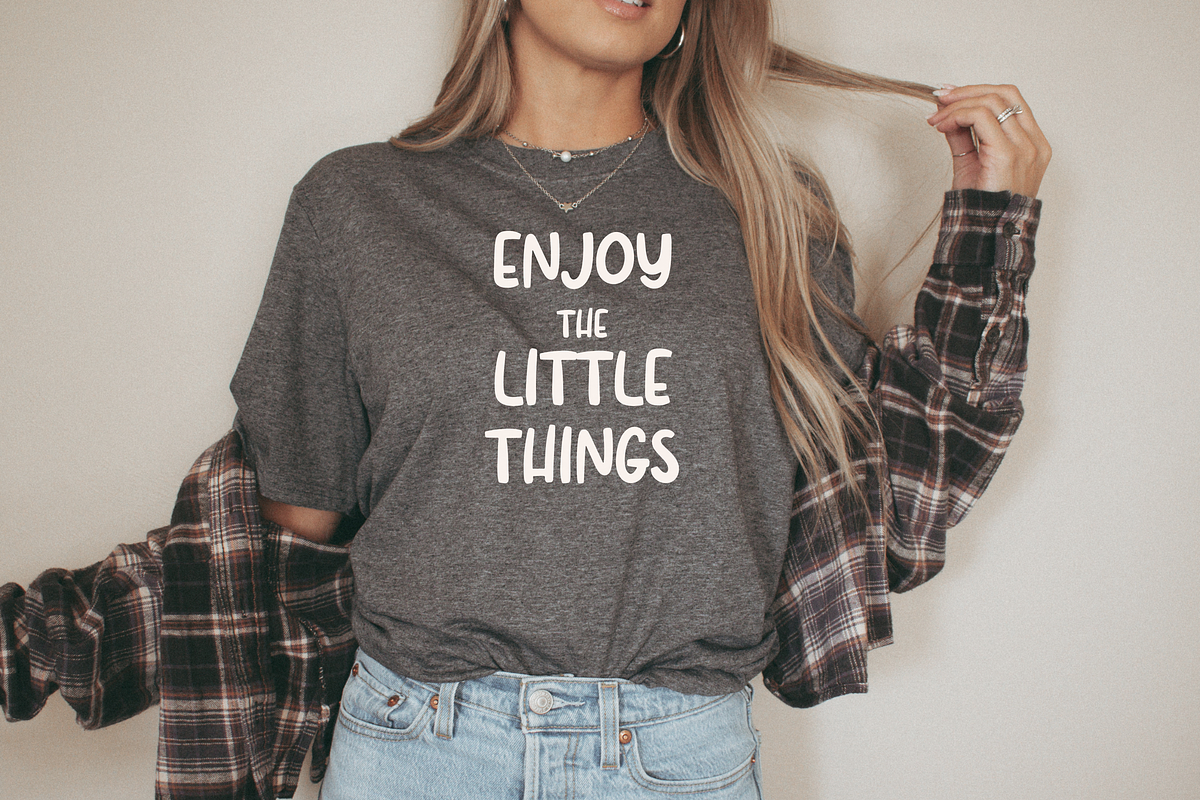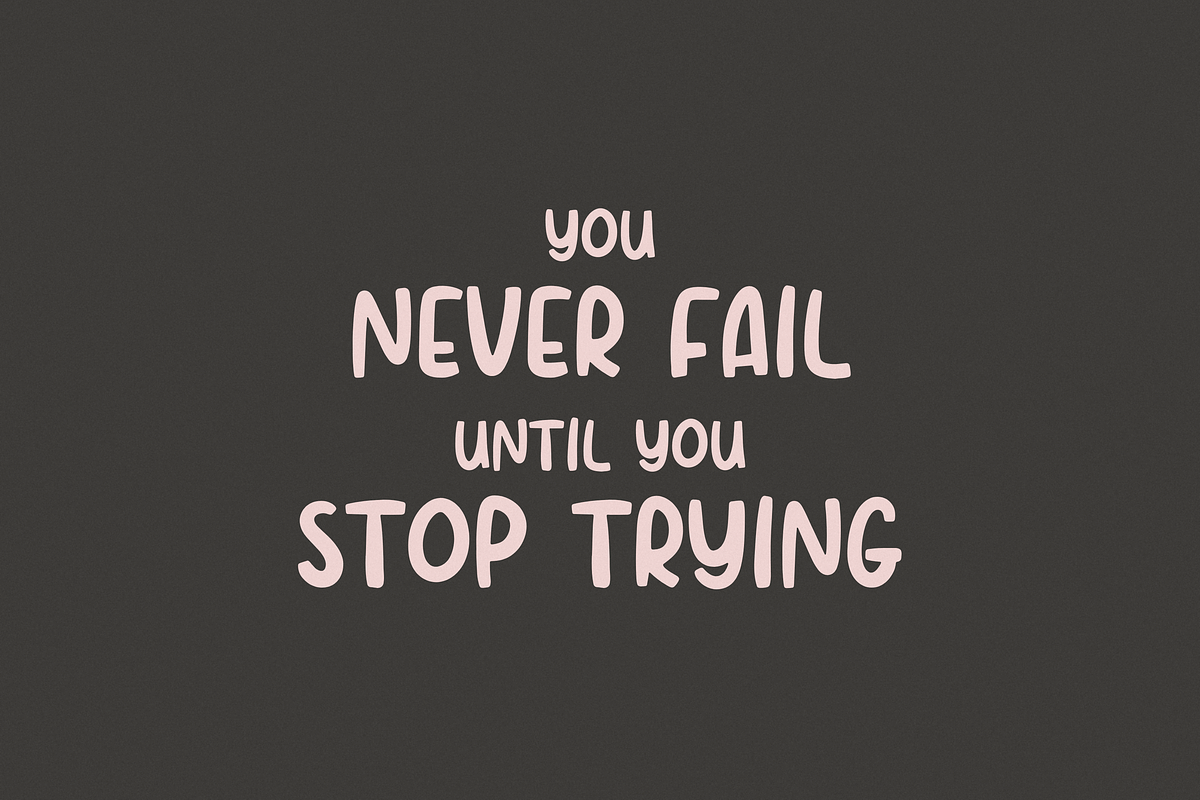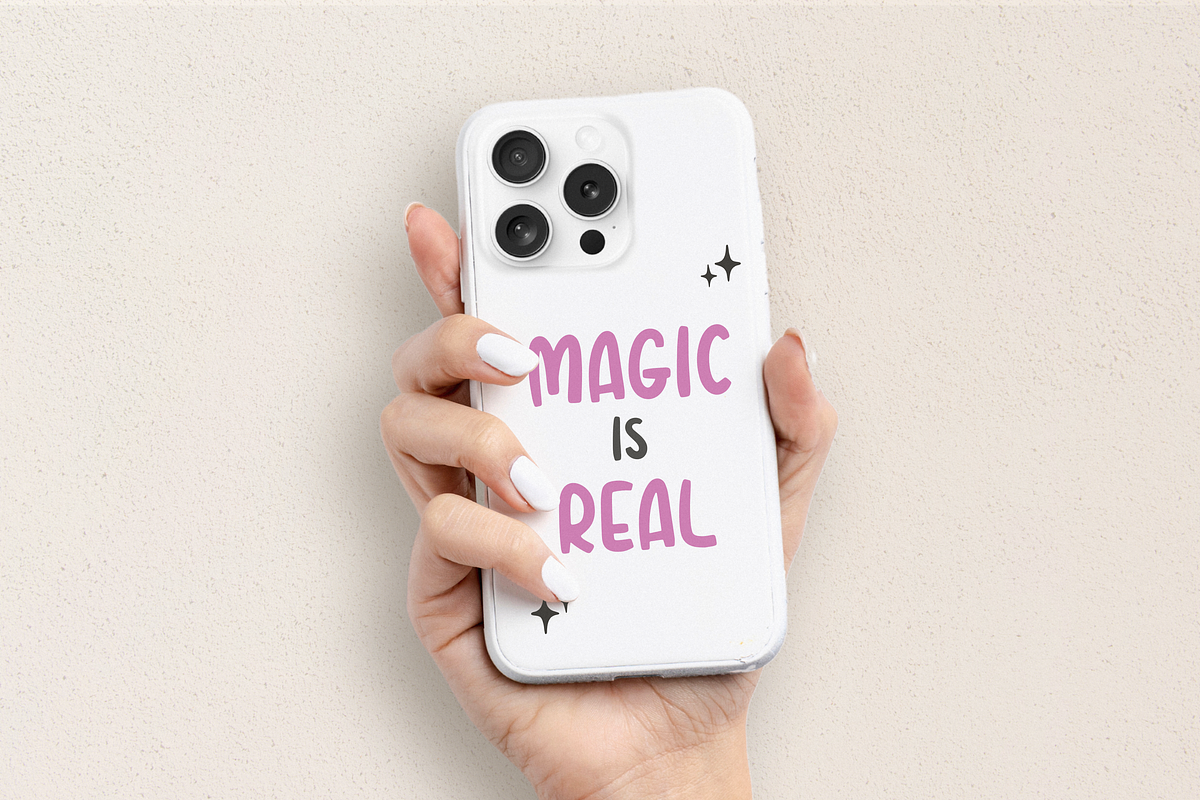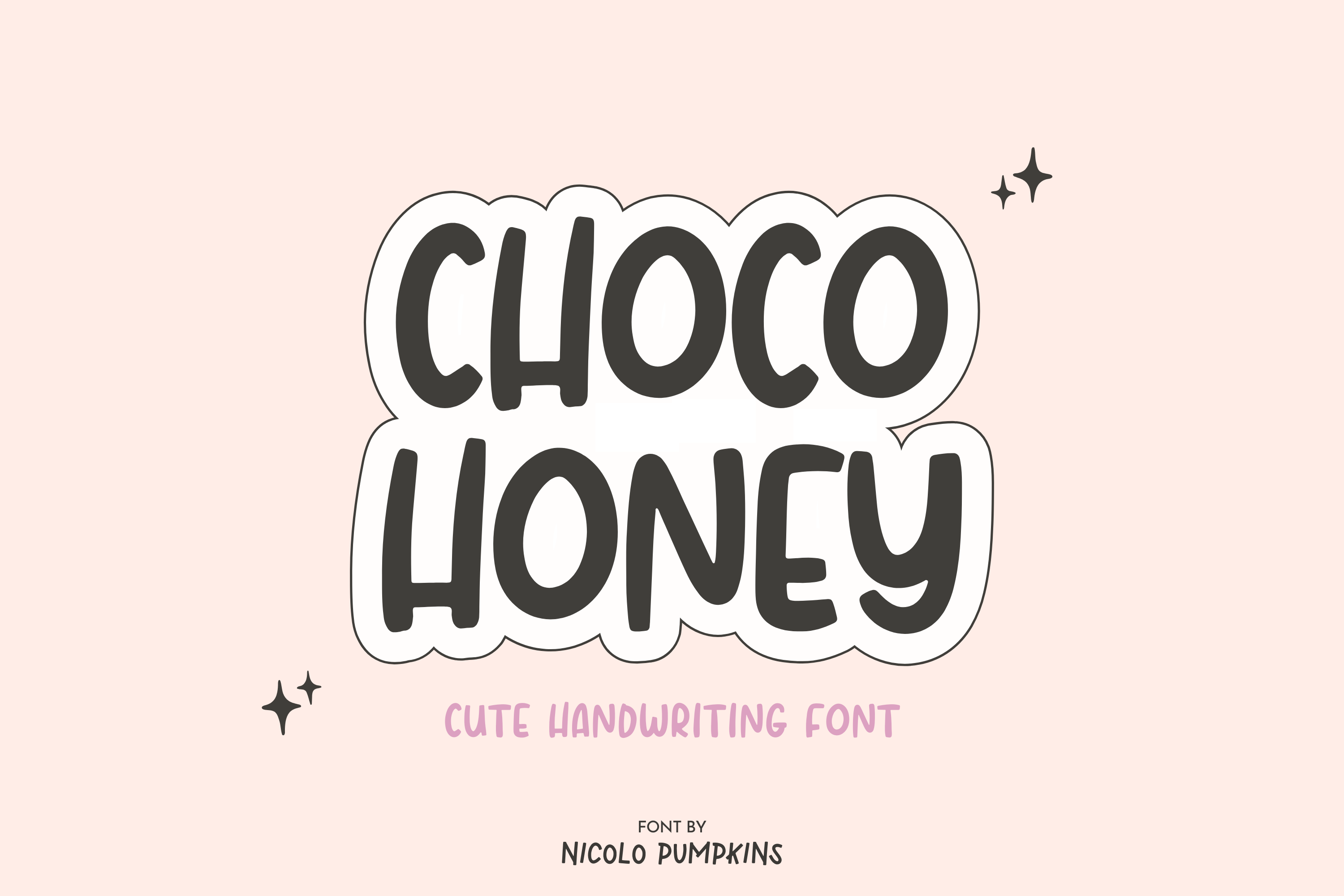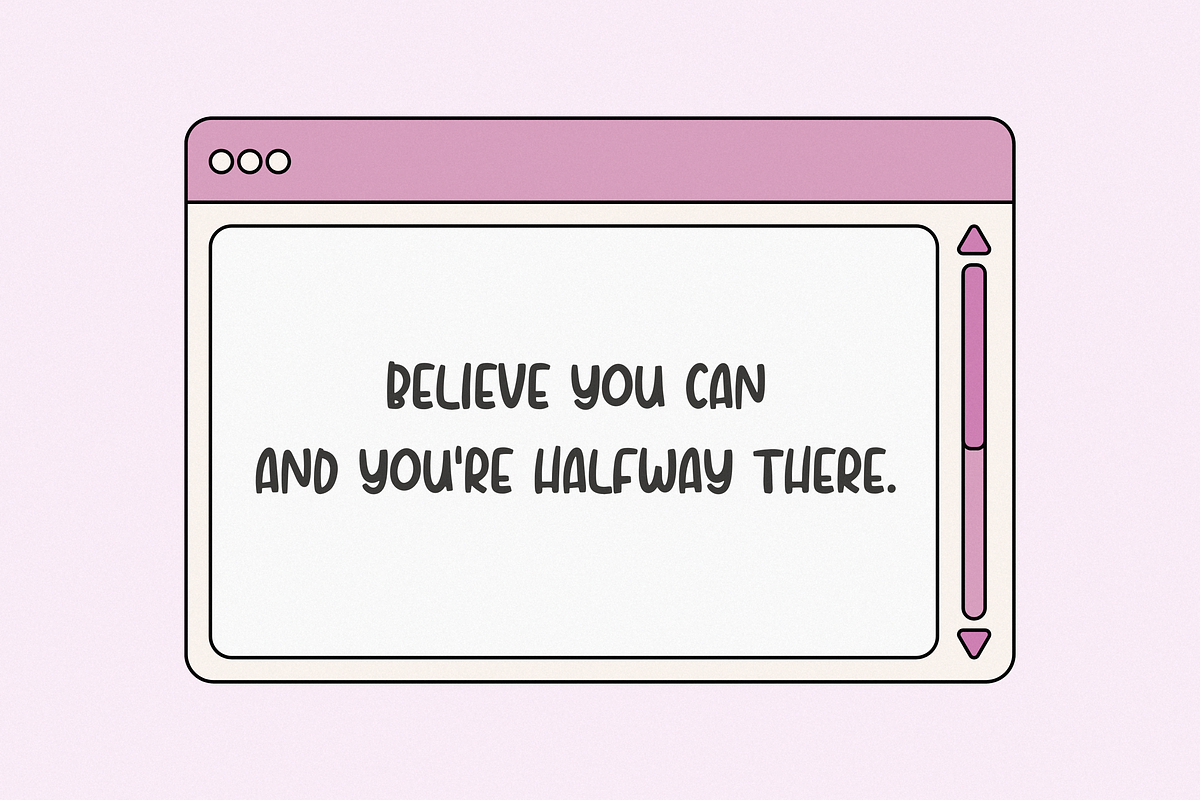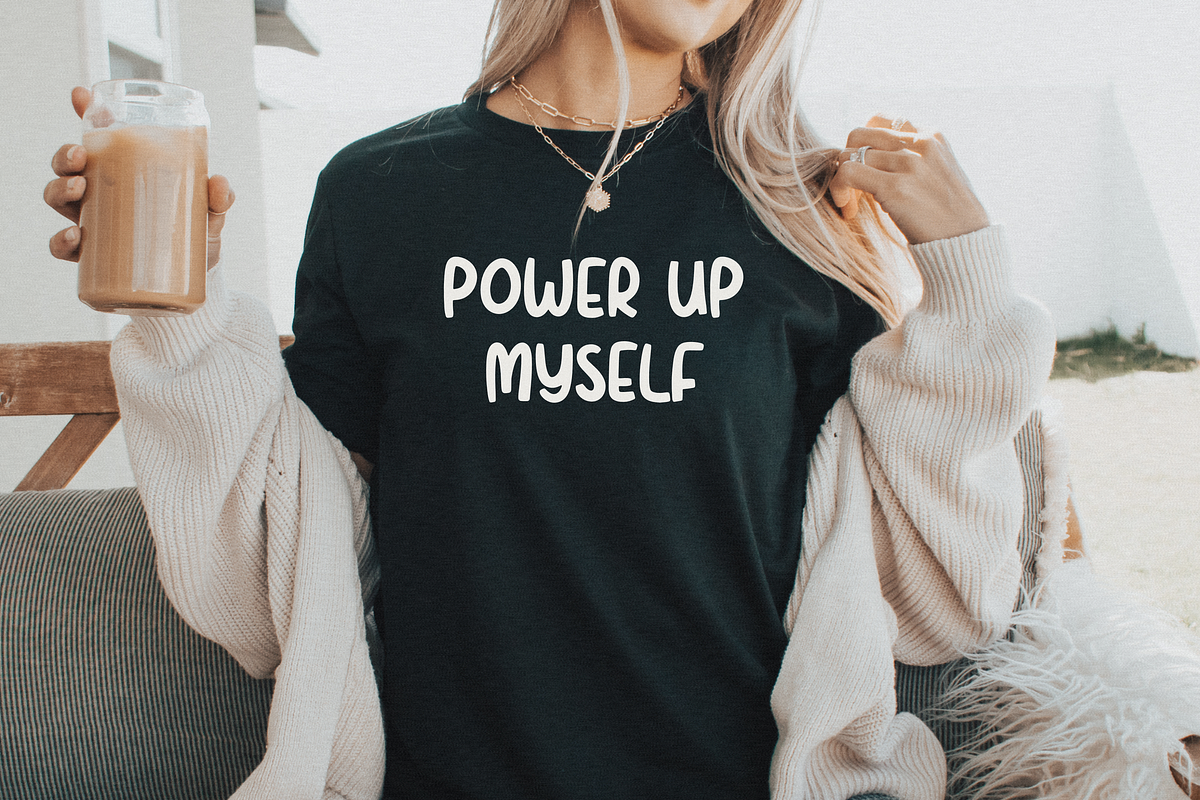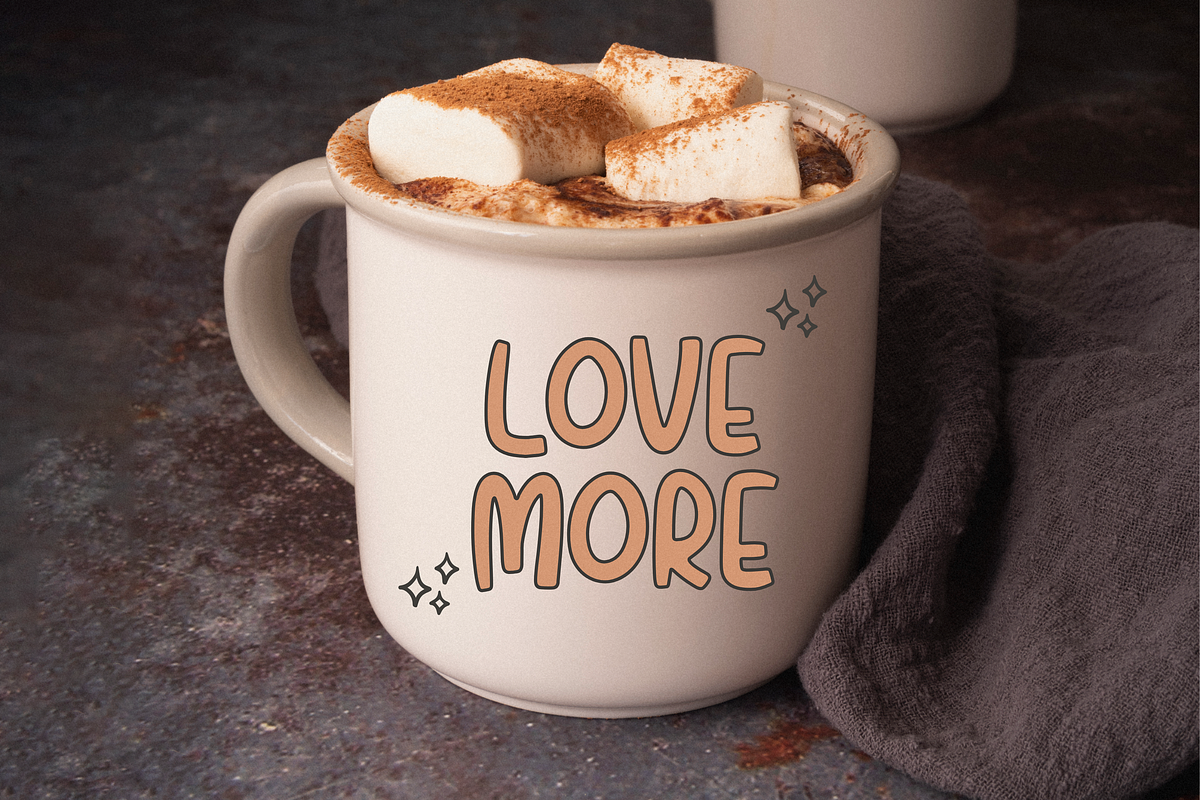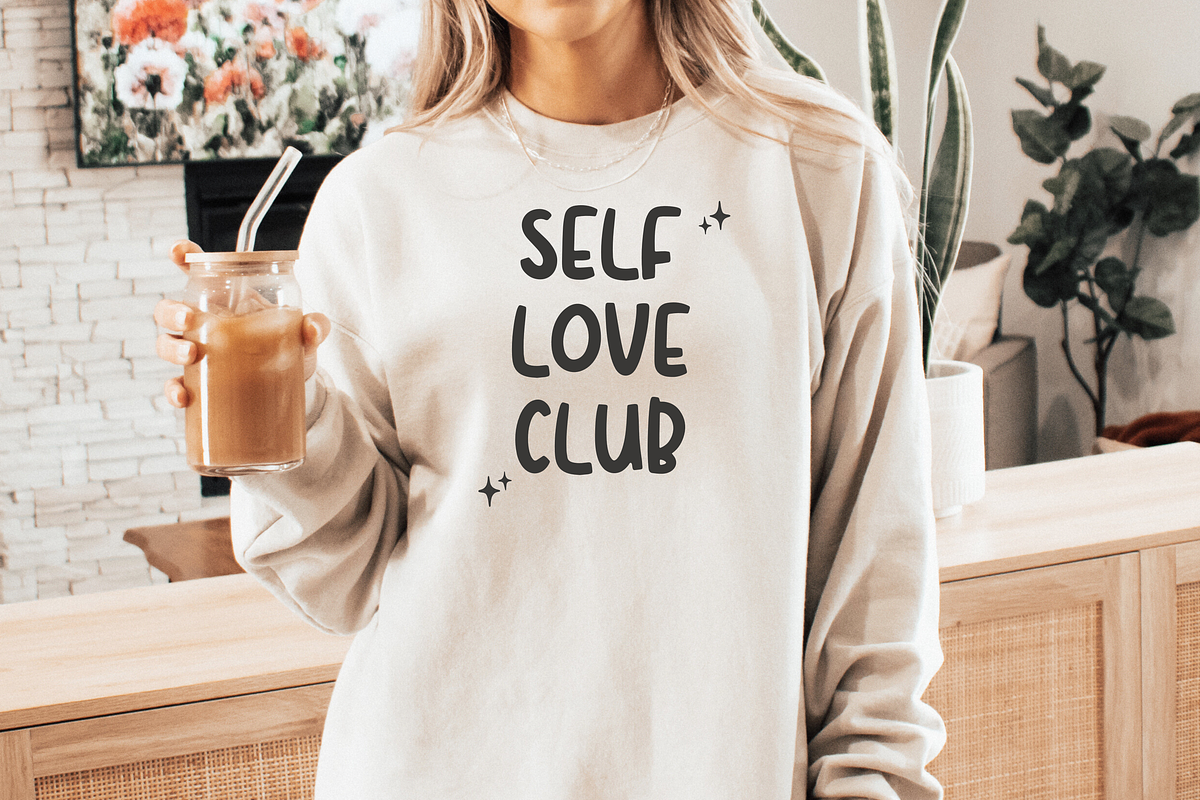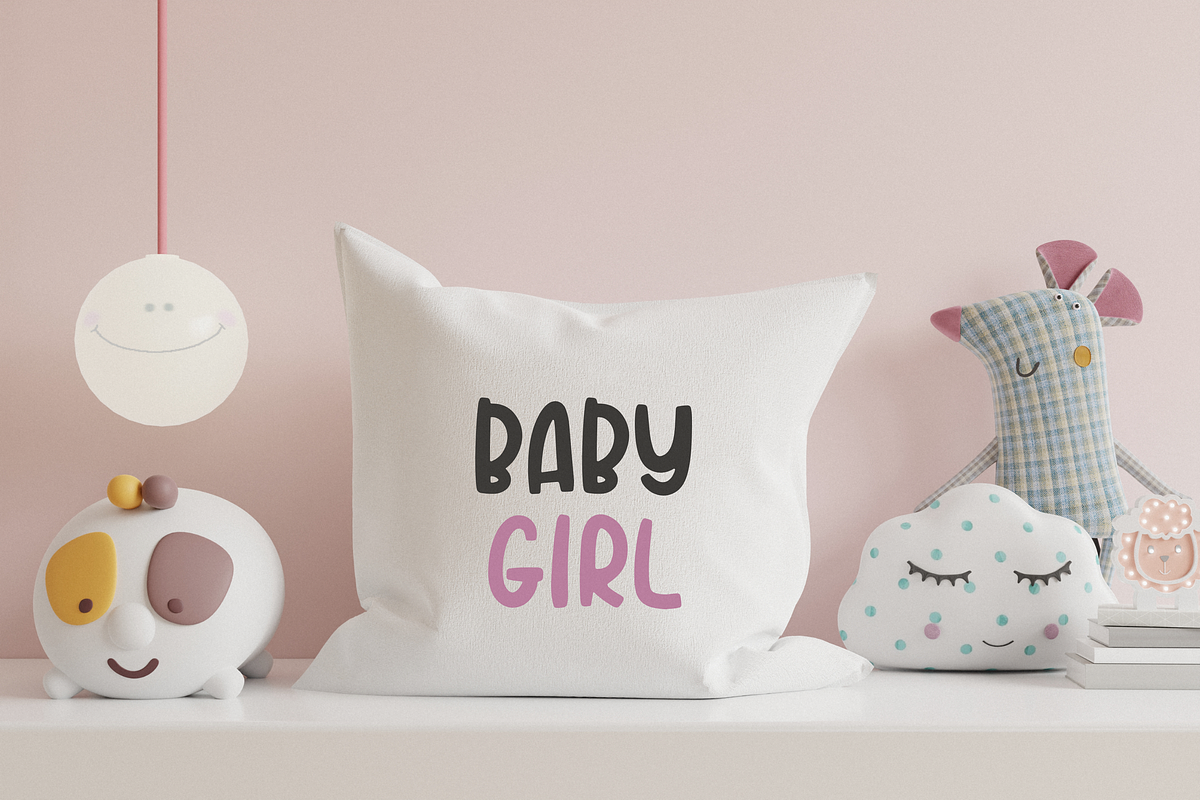
CHOCO HONEY Font
CHOCO HONEY FONT A cute handwritten font with fun & playful style.
✦ CHOCO HONEY FONT is perfect for: digital note taking/journaling on digital planner, shirts, mugs, invitations, greeting cards, Procreate, and more!